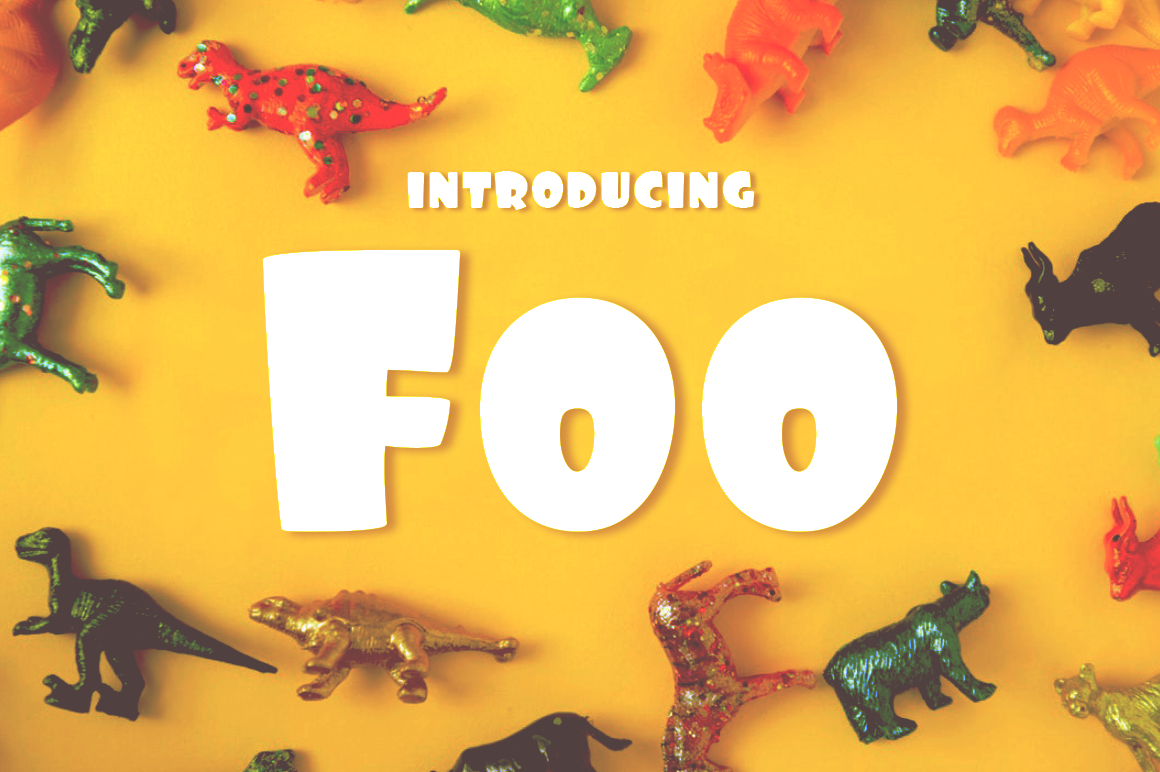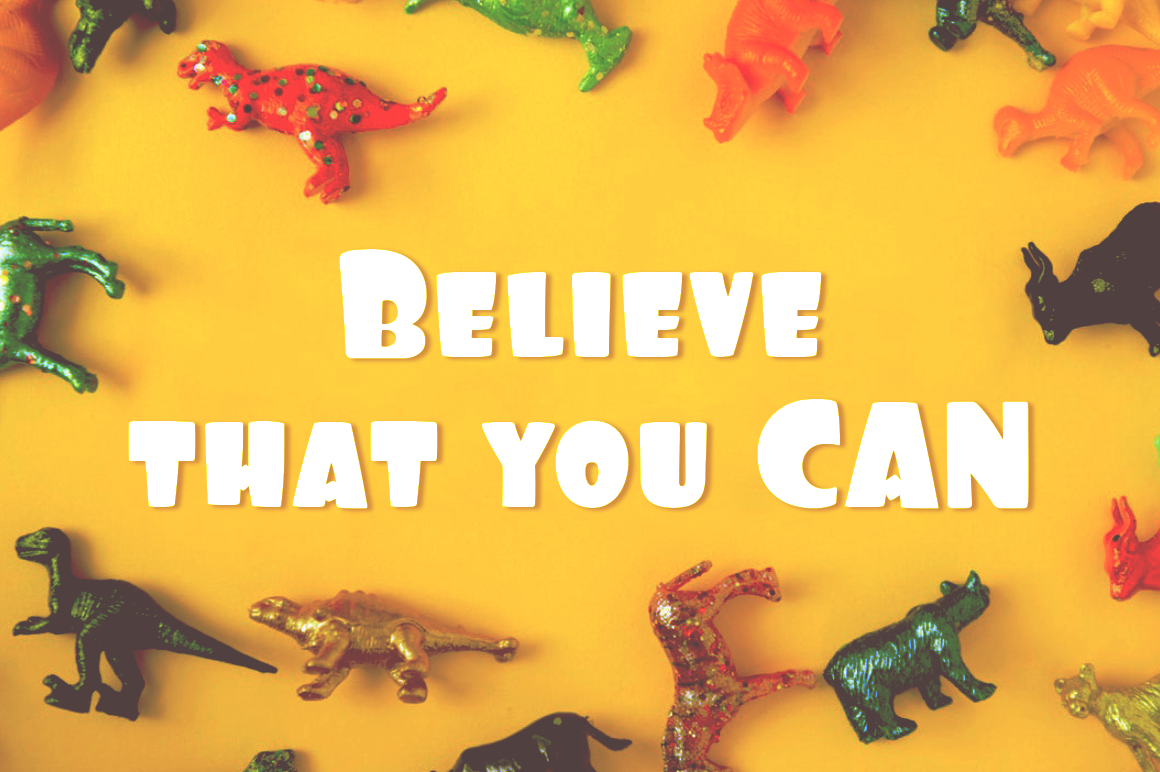
HomePersonal Use FreeFoo Personal Use Free Foo FacebookXPinterestWhatsApp 1 of 2 About Foo Font Foo is a beautiful, bouncy display font that is perfect for a wide range of carefree creative projects. DOWNLOAD NOW People also explored Safytri Font Carita Font Refillia Calligraphy Font Breazer Font Samawa Font Alexandra Signature Font Nero Font Jakarta Chapter Font Lovely Stylish 485 0 TagsAmerican FootballDelfoo Font Previous articleEnnobled PetNext articleDie Nasty LEAVE A REPLY Cancel reply Comment: Please enter your comment! Name:* Please enter your name here Email:* You have entered an incorrect email address! Please enter your email address here Website: Save my name, email, and website in this browser for the next time I comment. Personal Use Free Propaniac Personal Use Free Read more about this font Avatarock Personal Use Free Read more about this font Hair Thinned Personal Use Free Read more about this font Love Story Personal Use Free Read more about this font BLOG To increase your work productivity, choose the most readable fonts. In today's fast-paced work environment, where digital communication and information consumption are integral to our daily routines, the choice of fonts can significantly impact... Modern Sans-Serif Fonts That Brands Love in 2025 5 Fonts That Will Dominate Design Trends in 2026 Fonts That Capture the Spirit of New York City